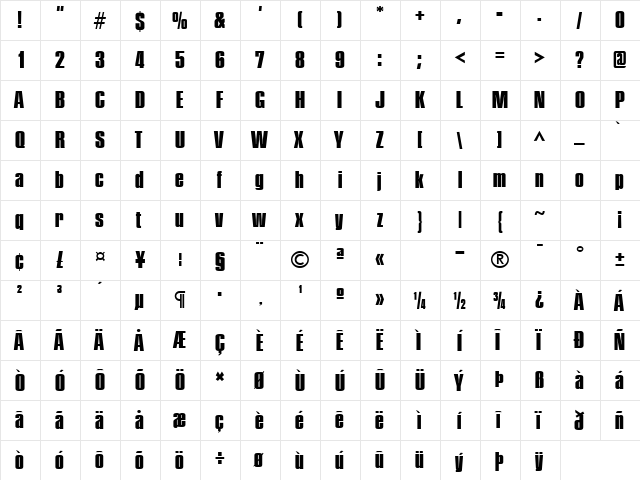
Hardcore Regular
Design Context for Hardcore Typeface
Hardcore offers clean, dependable letterforms without strong stylistic allegiance, making it a practical choice for designers who need flexibility.
Pro Tip: Use Hardcore in both headline and body roles to test its range before committing to a single application.